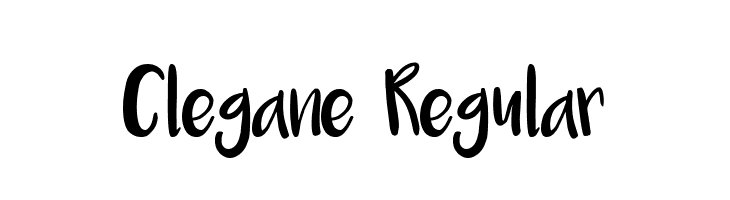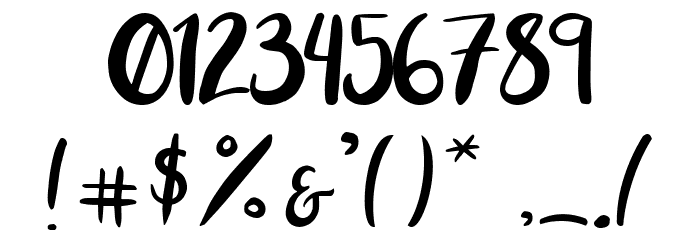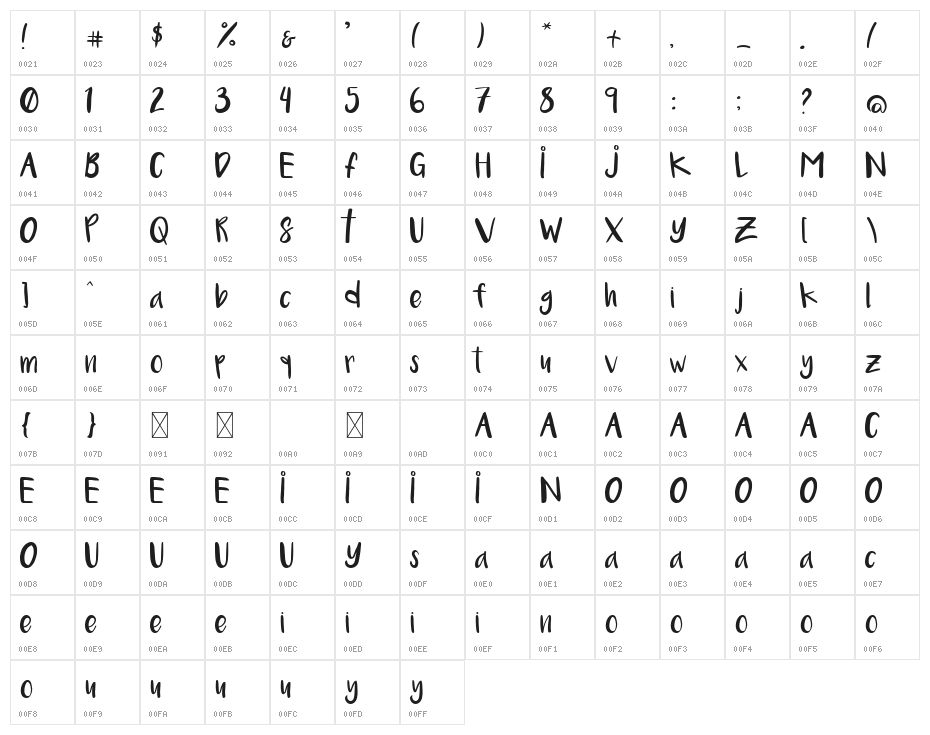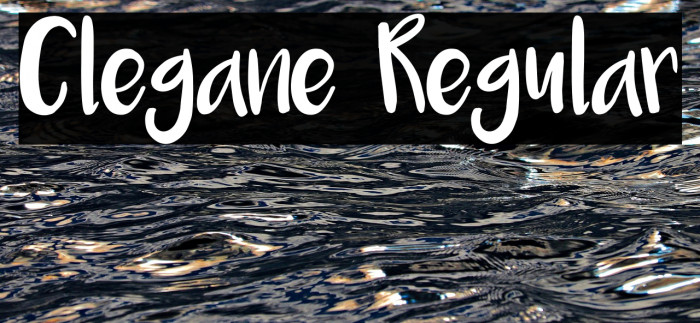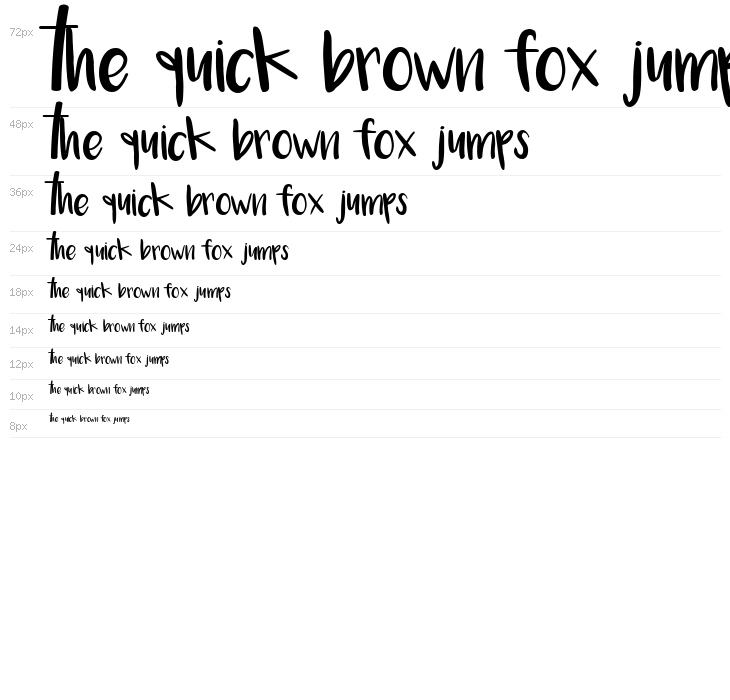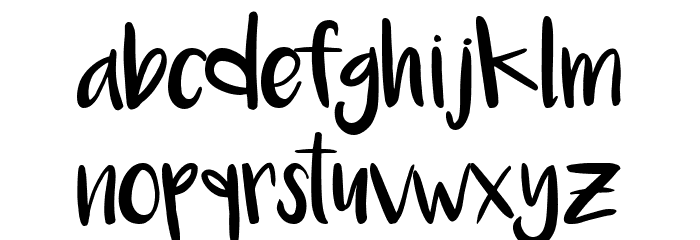
Clegane Regular Font
Clegane Regular Description
This font features a playful and energetic handwritten style, characterized by its bold and slightly irregular strokes. The uppercase letters are tall and slightly condensed, giving a sense of height and presence. The lowercase letters maintain a consistent flow, with rounded edges that add a friendly and approachable feel. Numbers are bold and clear, ensuring readability. Special characters are creatively designed, maintaining the overall playful aesthetic. This font is ideal for projects that require a personal touch or a casual, informal vibe.
| Proposed Projects | Ideal for greeting cards, children's books, playful branding, and social media graphics. |